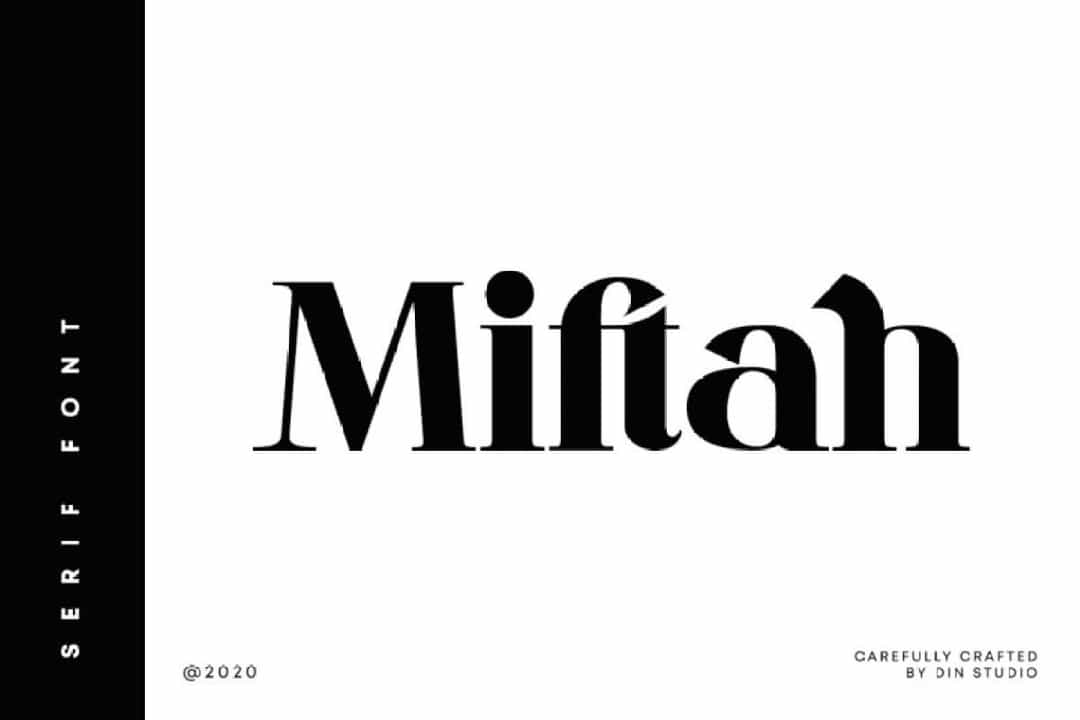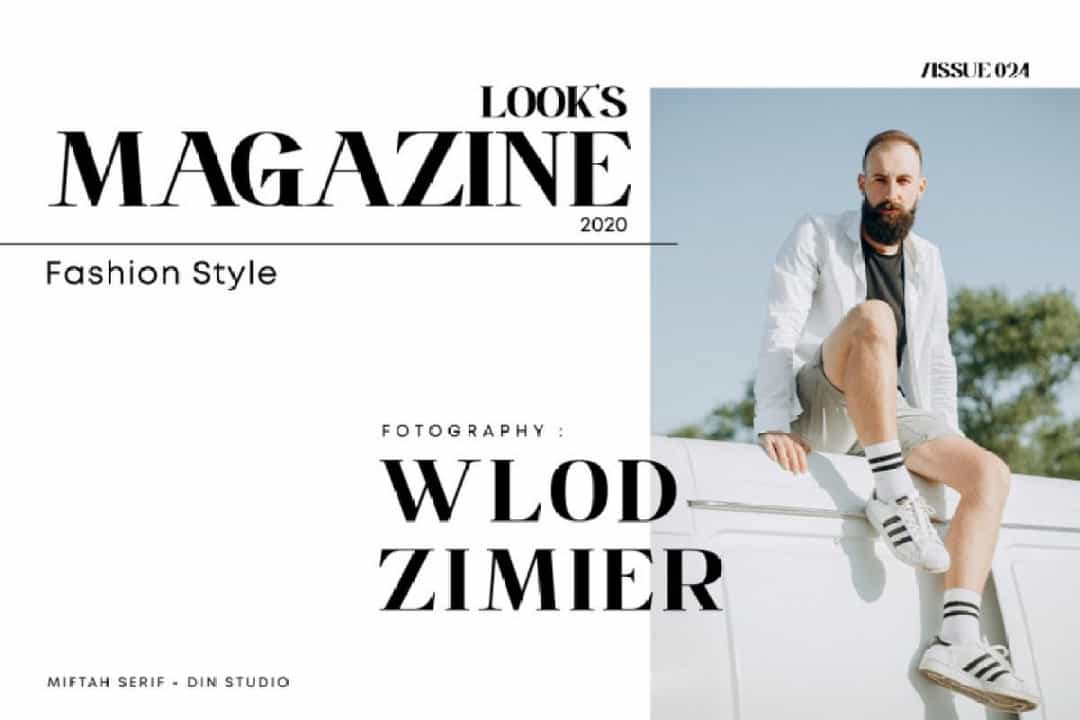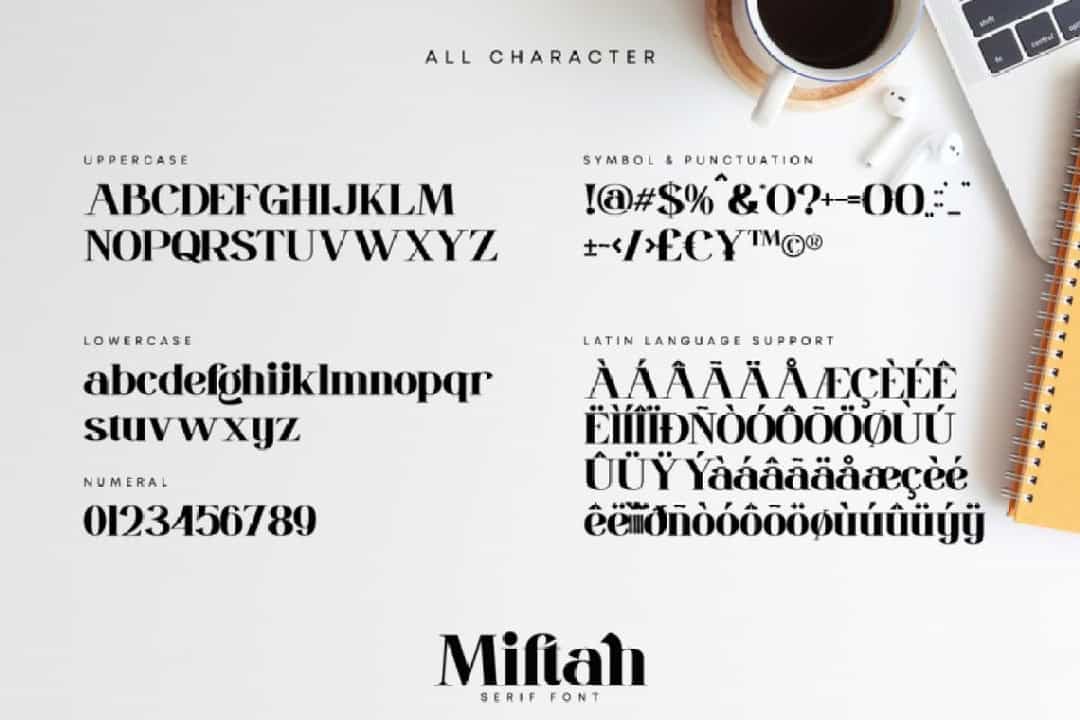
Discover Miftah Modern Serif Font, part of the Serif Basic collection—a versatile and unique font perfect for adding a personal touch to your projects. Download it for free and enjoy crafting designs with style, from invitations to social media posts. This font is available exclusively for personal use, giving you the freedom to create without limits. Unlock your creativity with Miftah Modern Serif Font today!
The font family called Mifta is a beautiful creation of a serif typeface suitable for branding of professional projects. Great for logos, brands, and sayings; the alphabet is gorgeous, and each letter has its own charm.